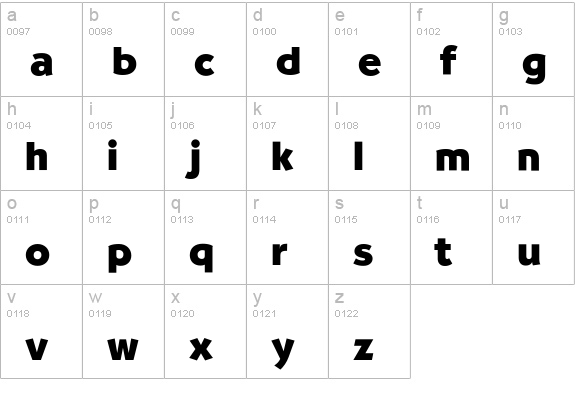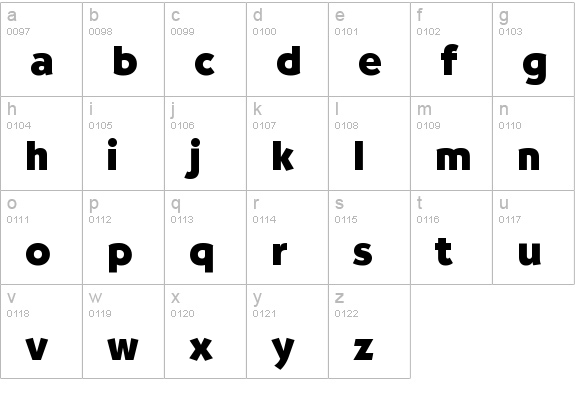
CgBernhardtBd Font Details
CgBernhardtBd is a stylish and elegant font that exudes sophistication and charm. With its bold and distinctive letterforms, this typeface is perfect for creating eye-catching headlines, titles, and branding materials. The clean lines and balanced proportions of CgBernhardtBd make it versatile and suitable for a wide range of design projects. What makes CgBernhardtBd even more appealing is that it is available for free download at FontsMarket.com. This means that you can easily access and use this beautiful font in your creative endeavors without any cost. Whether you're designing a poster, logo, or website, CgBernhardtBd will add a touch of class and professionalism to your work. Download it today and elevate your designs with this exquisite typeface.